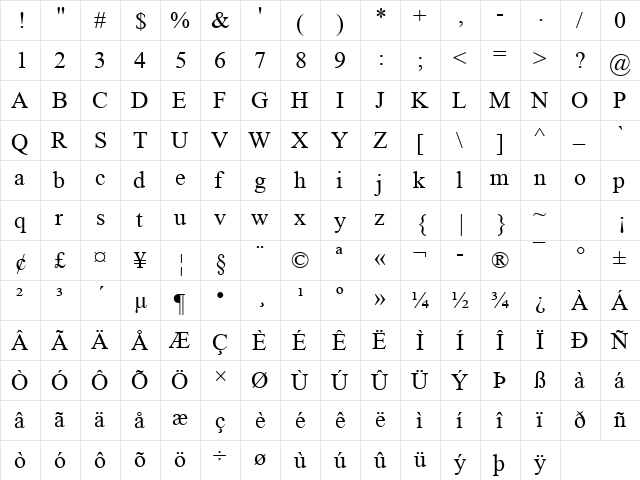
Mongolian Baiti Regular
| Foundry | Microsoft Corporation |
| Designer | Founder, Beijing China |
Design Context for Mongolian Baiti Typeface
Mongolian Baiti takes a measured approach to typography — its balanced proportions and neutral character make it a reliable workhorse for both digital and print work.